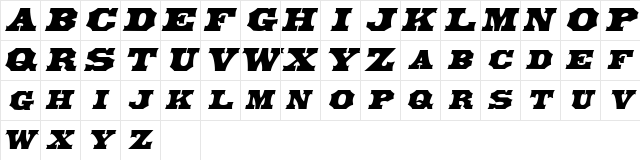
LibertySpikeExtended Oblique
Design Context for LibertySpikeExtended Typeface
LibertySpikeExtended is a composed and adaptable typeface that performs quietly and consistently across a wide range of design contexts. The slanted form adds forward momentum and visual energy.
Pro Tip: Try LibertySpikeExtended for annotation and caption copy alongside an upright companion — the contrast in angle creates a dynamic but ordered typographic system.